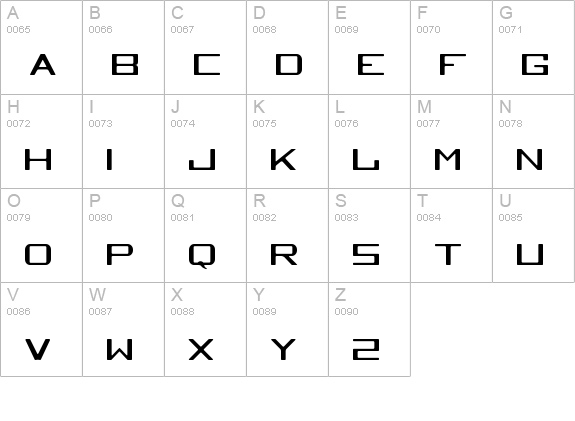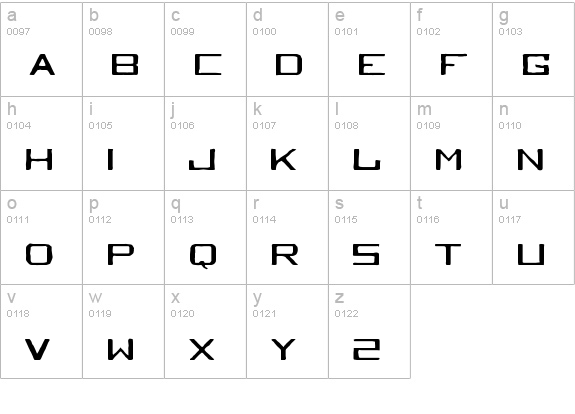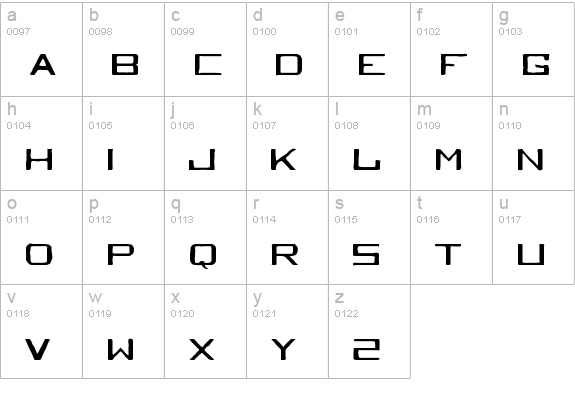
TequilaHeightsSobriaBorracha Font Details
TequilaHeightsSobriaBorracha font is a stunning and bold typeface that is sure to make a statement. It boasts a unique and intricate design, with each letter carefully crafted to exude a sense of elegance and sophistication. With its strong and confident strokes, this font is perfect for creating eye-catching headlines, logo designs, and branding materials. What sets TequilaHeightsSobriaBorracha font apart is not just its captivating aesthetic, but also the fact that it is available for free. Yes, you read that right – this incredible font can be downloaded at absolutely no cost from FontsMarket.com. Whether you're a professional designer or simply someone looking to add a touch of style to your personal projects, having access to a high-quality font like TequilaHeightsSobriaBorracha without breaking the bank is a game-changer. The versatility of TequilaHeightsSobriaBorracha font is another reason why it has gained popularity among designers. From sleek and modern designs to vintage and retro-inspired creations, this font adapts effortlessly to different design styles and themes. Its clean and legible characters ensure readability even at smaller sizes, making it suitable for various applications such as posters, invitations, packaging, and more. The attention to detail and craftsmanship of TequilaHeightsSobriaBorracha font is evident in every curve and contour. Its strong presence on the page commands attention and adds a touch of sophistication to any project. Whether used for print or digital media, this font is sure to leave a lasting impression on your audience. So why wait? Experience the beauty and versatility of TequilaHeightsSobriaBorracha font today. Head over to FontsMarket.com and download it for free. Unleash your creativity and let this remarkable typeface elevate your designs to new heights.